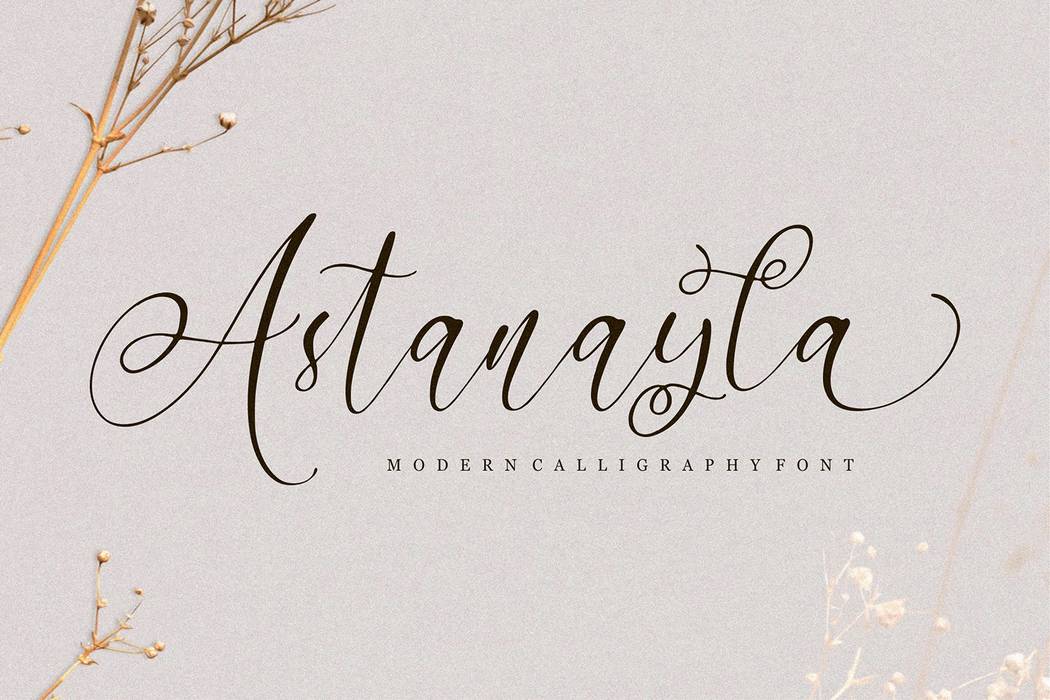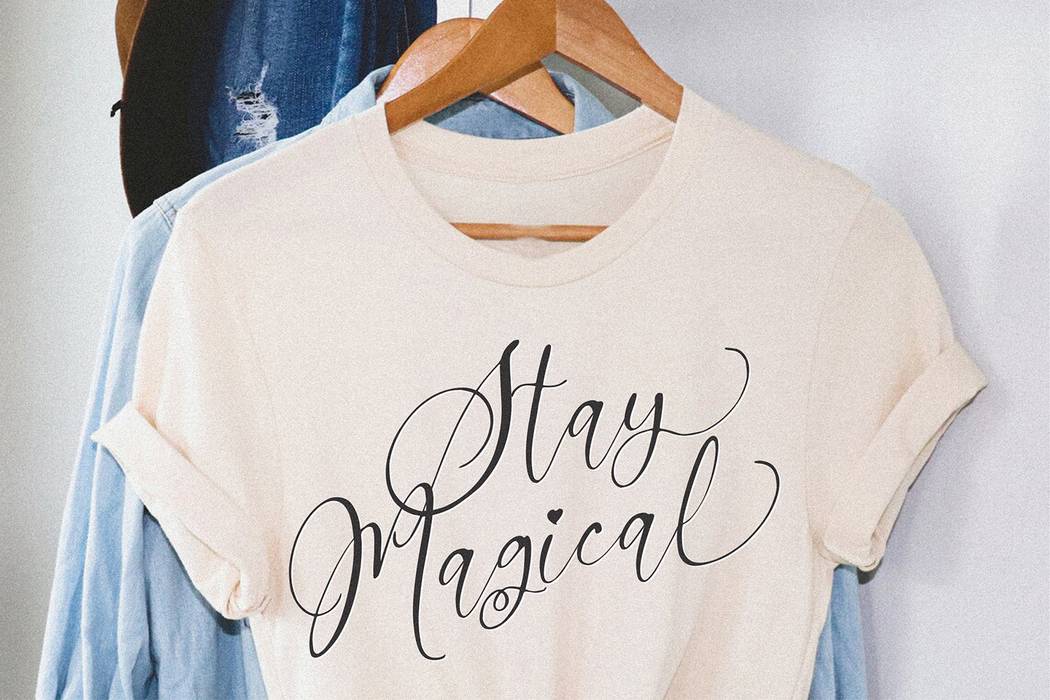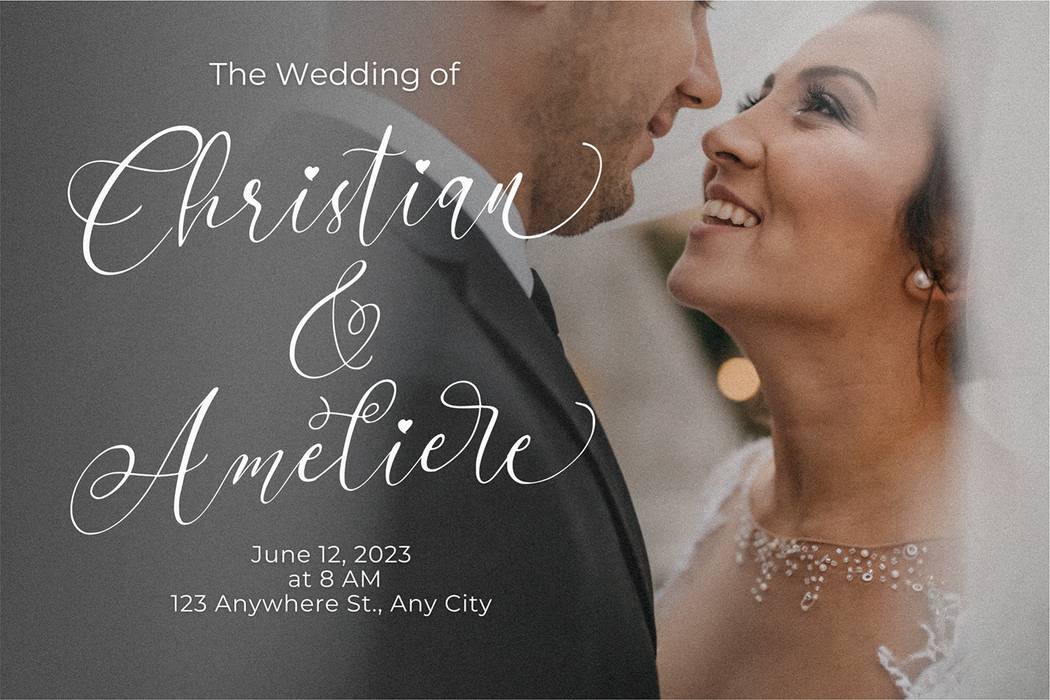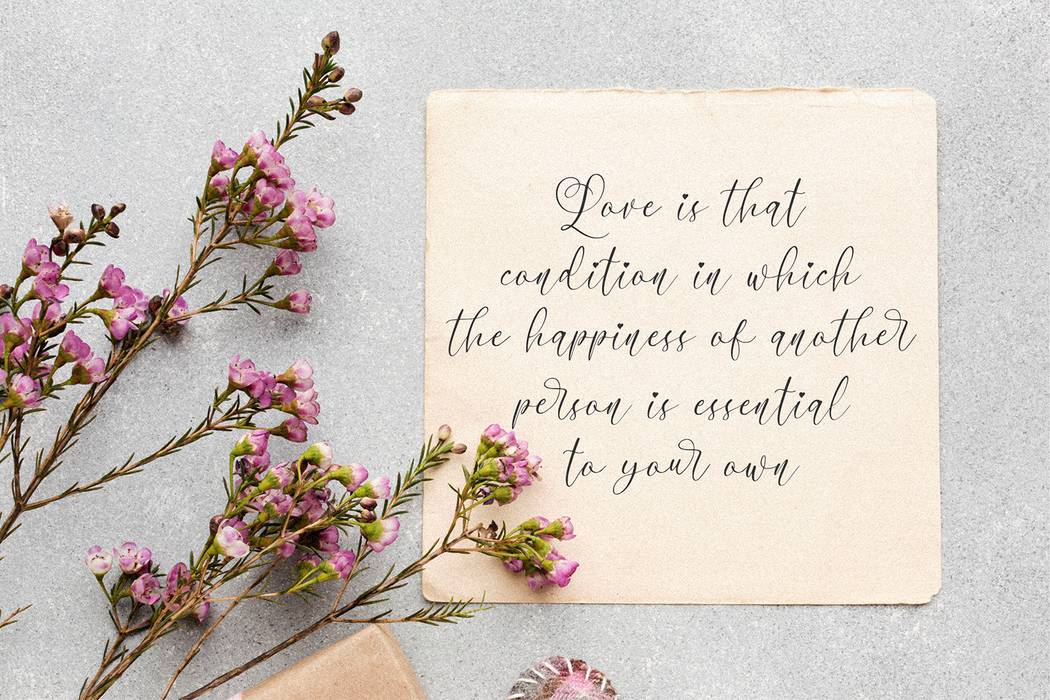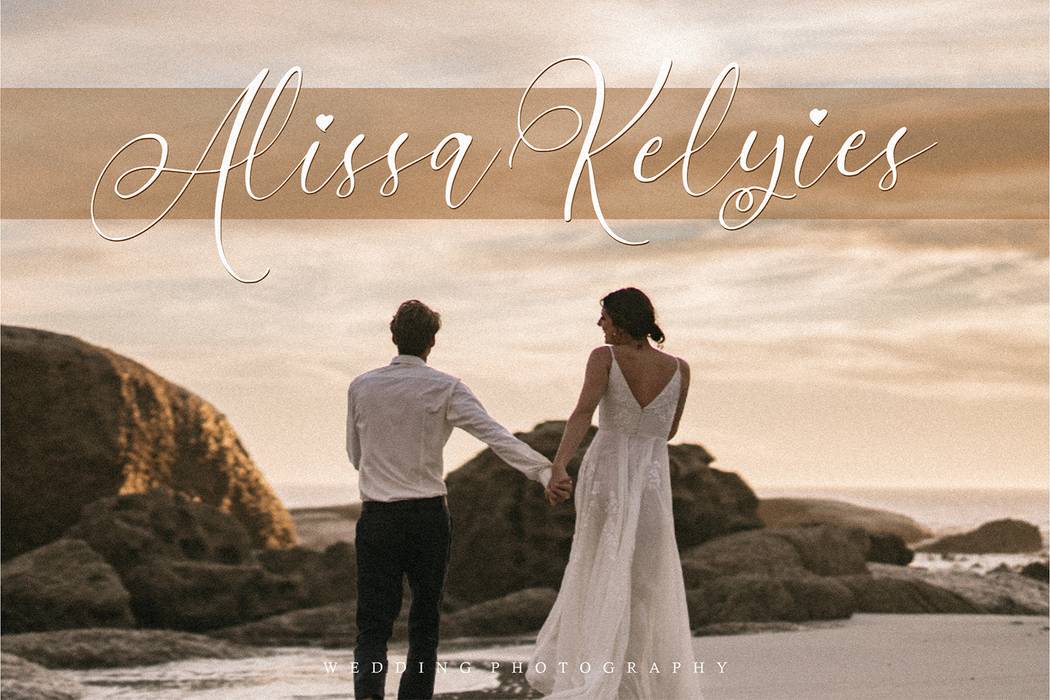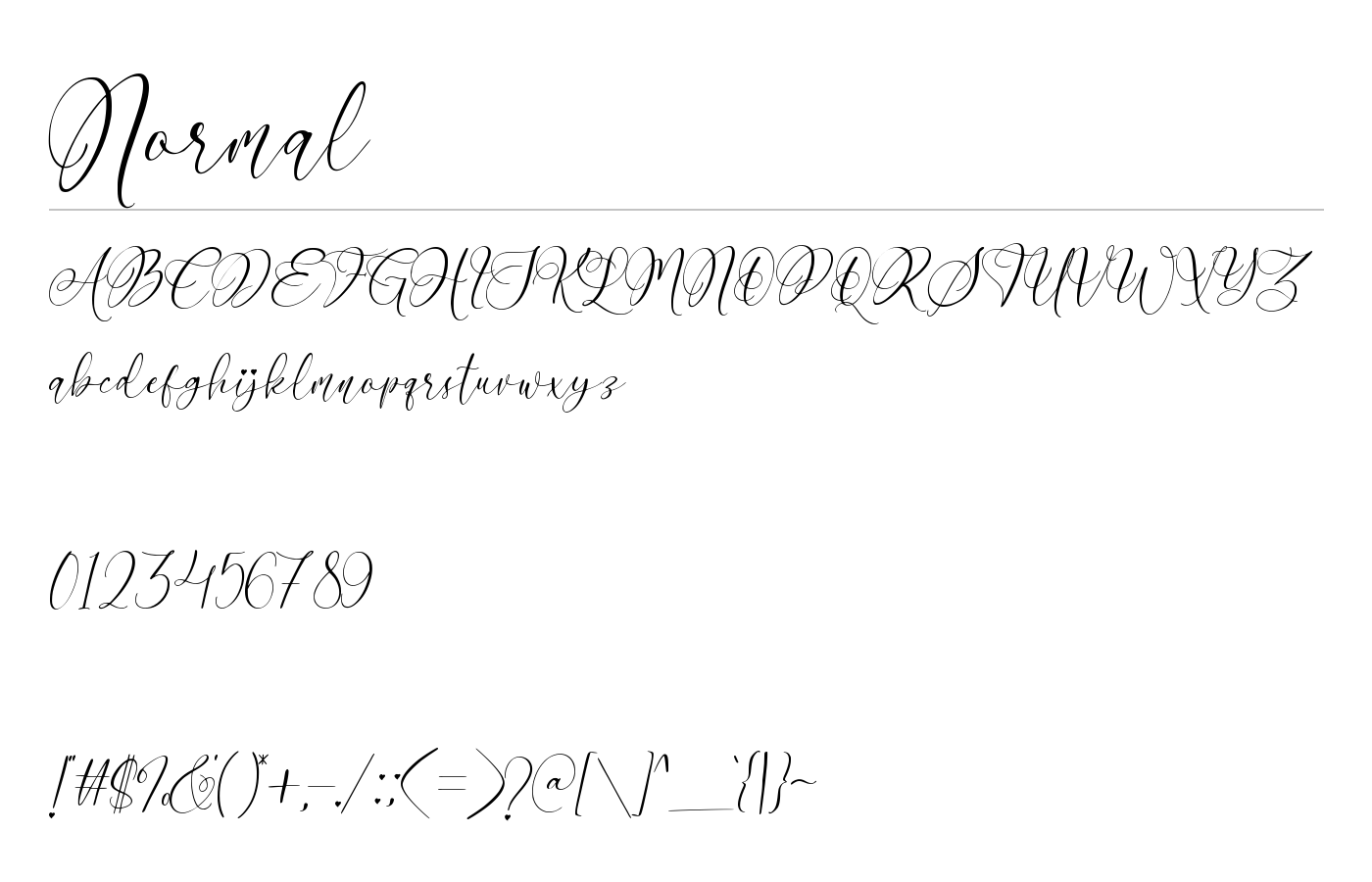
Astanayla is an elegant script font featuring delicate, flowing strokes and graceful swashes that give it a refined, handwritten appearance. Its thin, high-contrast lines and ornate uppercase letters make it ideal for sophisticated branding, invitations, and stylish editorial projects where a touch of luxury and femininity is desired. This font lends a romantic and exclusive feel, perfect for fashion, wedding designs, and upscale packaging.
Astanayla Font
About Astanayla Font
| Font family | Astanayla Font |